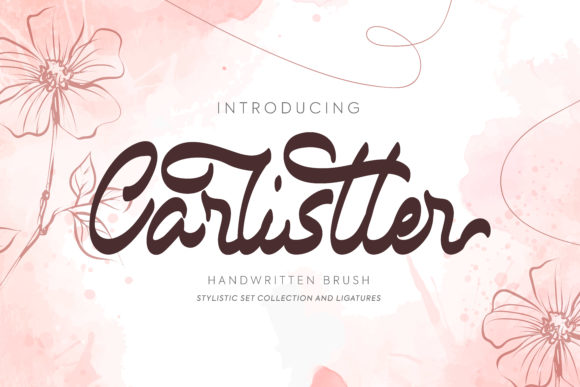
The Carlistter Font: A Bold Handwritten Favorite
Have you ever been in the middle of a design project, and suddenly, you’re stuck on finding the perfect font? I recall a particularly frustrating experience while working on a wedding invitation design. My client wanted something elegant, yet playful, and I was determined to deliver. That’s when I stumbled upon the Carlistter font. It was love at first sight! 💕
Carlistter is a bold handwritten font, carefully handcrafted to become a true favorite. It will elevate a wide range of design projects to the highest level, be it branding, headings, wedding designs, invitations, signatures, logos, labels, and much more!
- ✨ Unique and eye-catching: Carlistter’s bold and handwritten style makes it stand out from more traditional fonts.
- ✅ Versatile: It can be used for a variety of design projects, from wedding invitations to branding and logos.
- 💯 Elegant yet playful: The font strikes the perfect balance between sophistication and playfulness.
While Carlistter is an amazing font, there are a few things to keep in mind: 🤔
- ⚠️ Limited use for body text: Due to its bold nature, Carlistter might not be the best choice for longer blocks of text.
- ⚠️ Requires attention to spacing: To ensure optimal readability, you may need to adjust the spacing between letters and words.
The Designer Inspiration Behind Carlistter
While the true story behind Carlistter’s creation remains a mystery, it’s easy to imagine a designer with a passion for handwriting and typography. Perhaps they were inspired by the elegant script of vintage wedding invitations or the bold lettering of street art. Whatever the inspiration, Carlistter is a testament to the power of handwritten typography.
Q: Is Carlistter a script font?
While Carlistter has a handwritten feel, it’s more accurately described as a bold, handwritten font rather than a traditional script font.
Q: Can I use Carlistter for body text?
Due to its bold nature, Carlistter is best suited for headings, titles, and short blocks of text. For longer body text, a more traditional font may be more suitable.